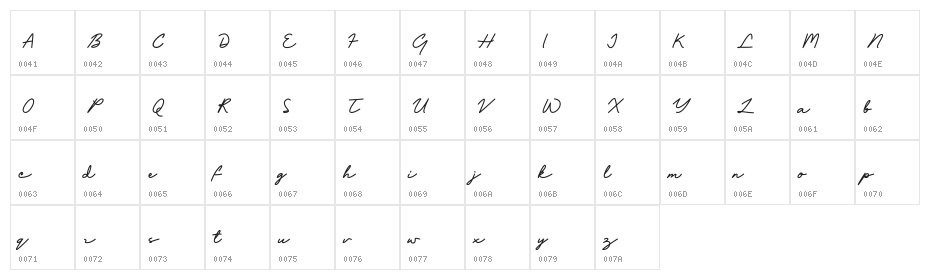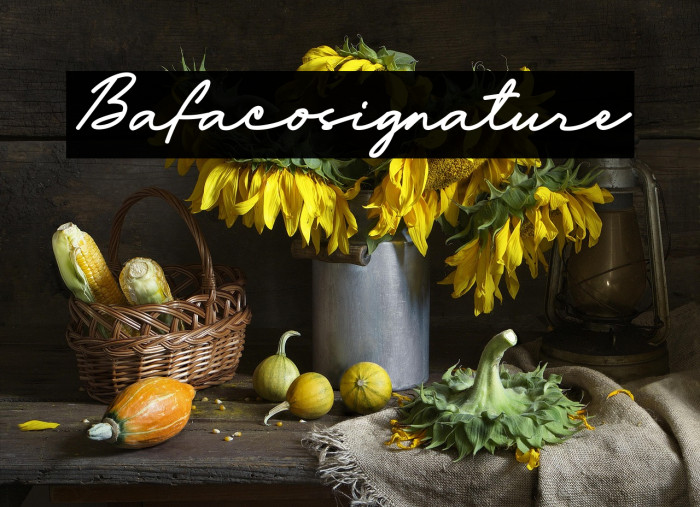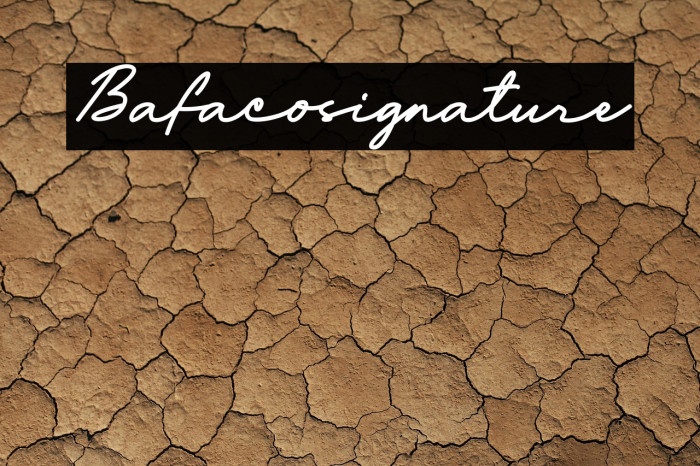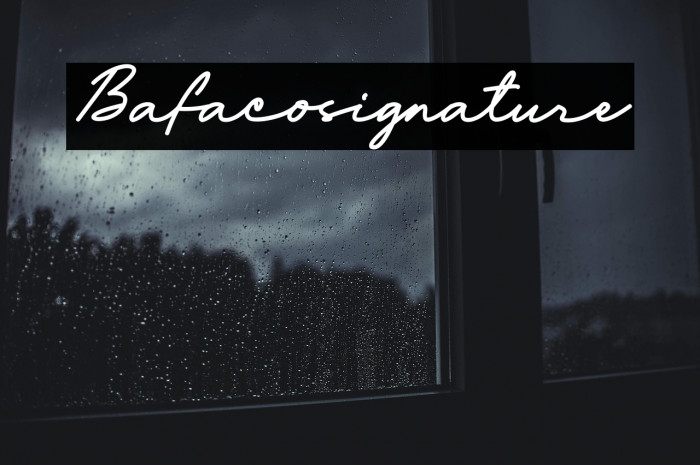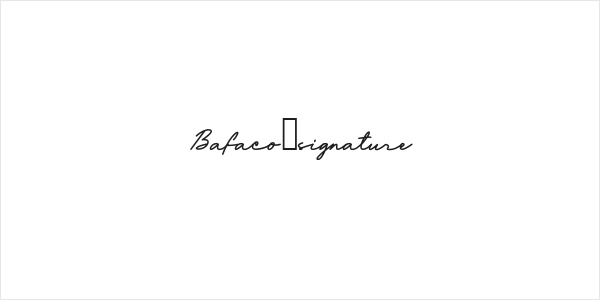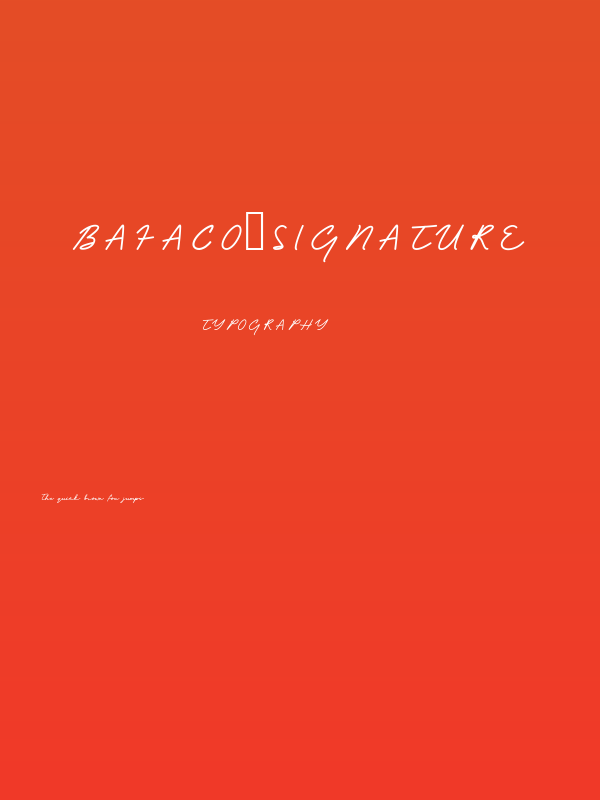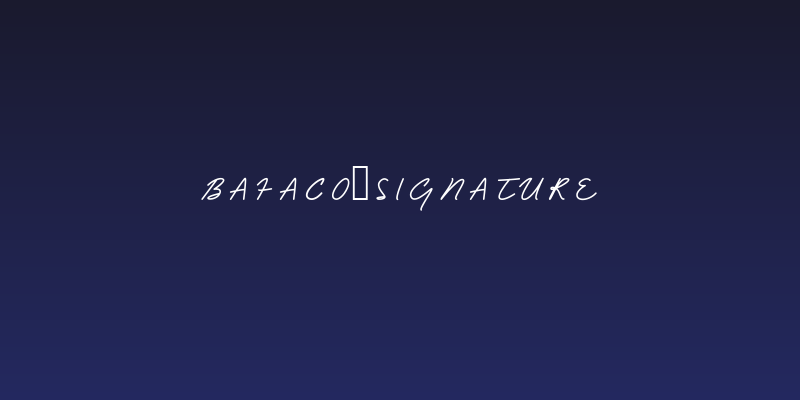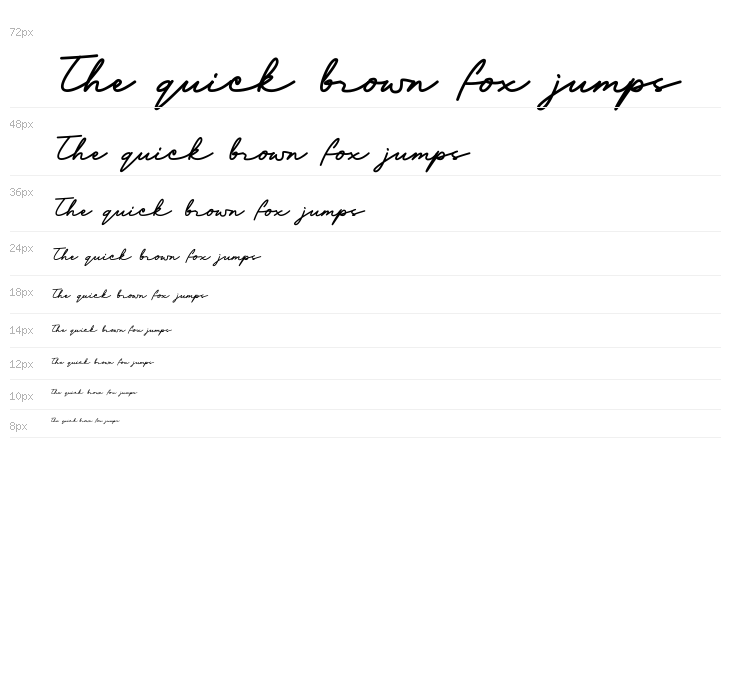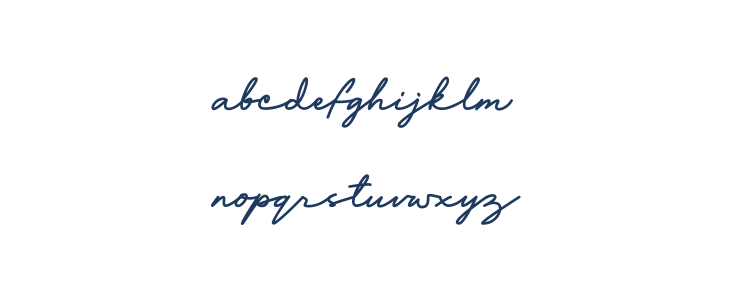
Bafaco_signature Font
Bafaco_signature Description
This font exudes a casual yet elegant handwritten style, characterized by its smooth, flowing lines and slight slant. The uppercase letters are distinct and slightly larger, maintaining a consistent height, while the lowercase letters are more fluid and connected, mimicking natural handwriting. The overall appearance is neat and legible, with a personal touch that adds warmth and approachability. The strokes are moderately thick, providing good readability without overwhelming the design. This font is versatile, suitable for a variety of creative projects where a personal or informal tone is desired.
| Overall Style | Casual, Elegant |
| Proposed Projects | Ideal for personal branding, invitations, greeting cards, and social media graphics. |